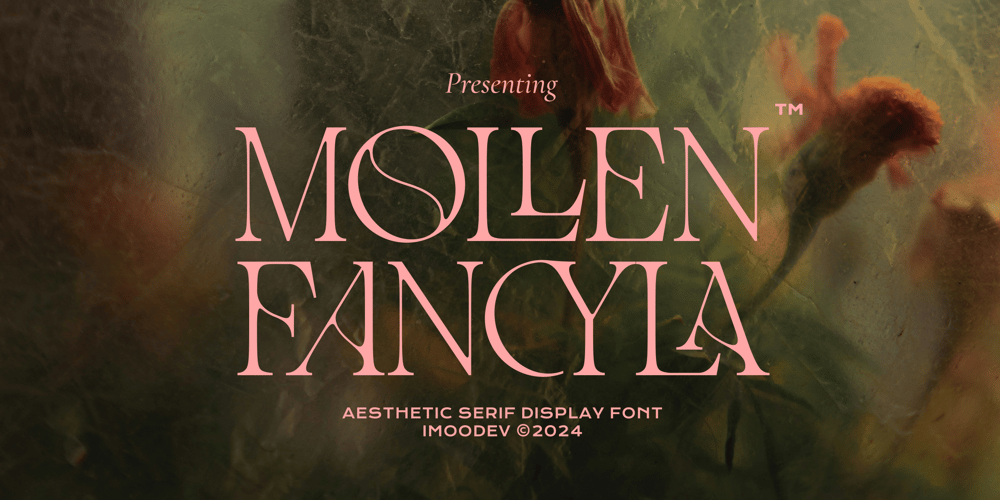
Mollen Fancyla Font Family was designed by Aulia Savira Putri and published by Imoodev. Mollen Fancyla contains 1 styles and family package options. Mollen Fancyla is a aesthetic serif font that seamlessly blends beauty and a feminine touch, infusing a sense of class and contemporary sophistication. Its graceful lines and modern aesthetic make it the perfect choice for projects seeking a balance of elegance and modernity and smooth curves every lettering a can embodies charm in, making your work look stunning and attractive.